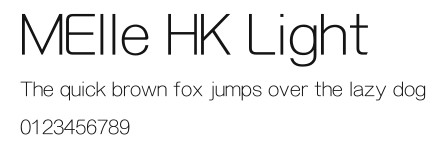
• Font Name: MElle HK Light
• Font ID: MElle HK Light
• Full Font Name: MElle HK Light
• Version: Version 3.0
• PostScript Name: MElleHK-Light
• Character Count: 25245
• Manufacturer: Monotype Imaging Inc.
About MElle HK Light.ttf
MElle HK Light.ttf is a modern, elegant sans-serif font designed for ultimate readability and visual harmony. Perfect for branding, headlines, web design, and print materials.